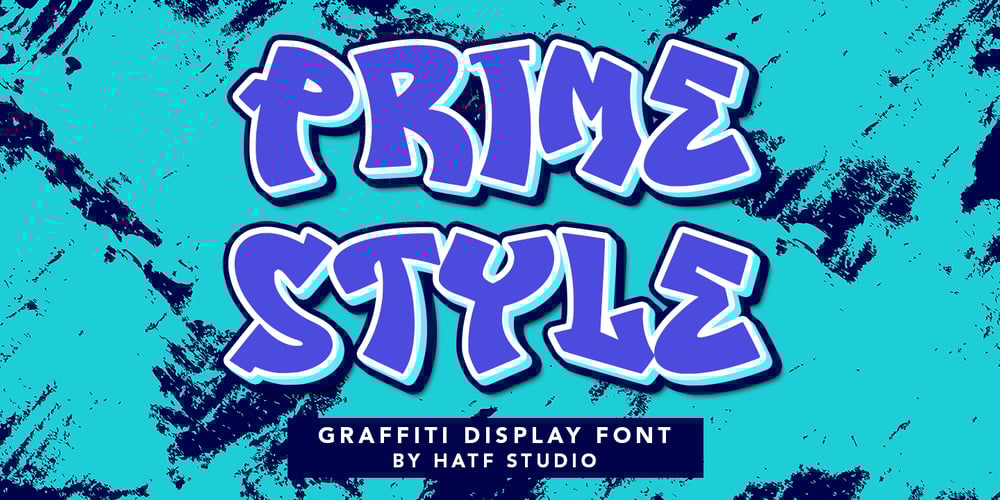
Prime Style Font Family was designed by Asep Rendi and published by Hatftype. Prime Style contains 1 styles and family package options. Prime Style – Graffiti Display Font is a free style font that has the characteristics of street art that shows freedom and is filled with unique characters.Features : • Character Set A-Z • Numerals & Punctuations (OpenType Standard) • Accents (Multilingual characters) • Ligature • AlternateThere it is. I really hope you enjoy it. Comments & likes are always welcome and accepted. More importantly, don’t hesitate to send a message if you have a problem or question.